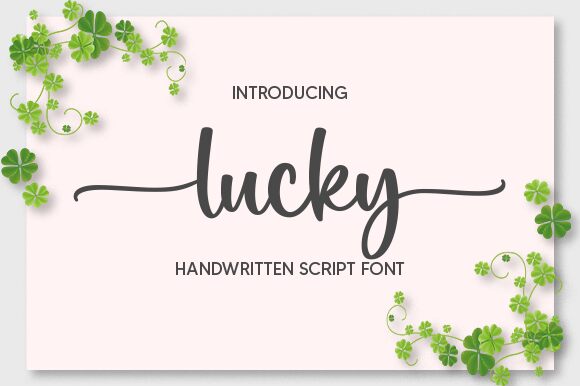
Lucky
Lucky, a handwritten font designed by Graphix Line Studio, exudes a playful and whimsical charm. Its semi-light weight adds to its airy and delicate appearance, making it perfect for projects that require a touch of finesse. This versatile font is ideal for crafting invitations, greeting cards, logos, and social media graphics. Whether you're designing a wedding invitation or creating an Instagram post, Lucky's handwritten style will add an organic and personal touch to your project. Add some luck to your designs with Lucky font!